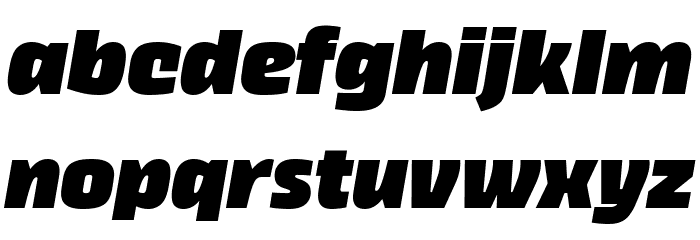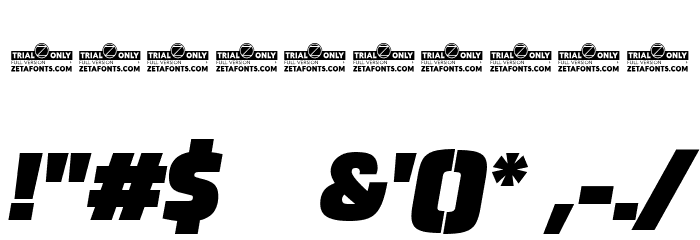
Thicker Trial Black Slanted Font
This font exhibits a bold and impactful design with a strong slant, giving it a dynamic and energetic appearance. The characters are thick and robust, making them highly visible and attention-grabbing. The uppercase and lowercase letters maintain a consistent style, with smooth curves and sharp angles that enhance readability. The numbers and special characters are designed to match the boldness of the alphabet, ensuring uniformity across all text elements. This font's slanted style adds a sense of motion and modernity, making it suitable for various creative applications.
A bold, slanted font with a dynamic and modern style.
- Font: Thicker Trial Black Slanted
- Proposed Projects: Ideal for sports branding, dynamic posters, modern advertising, and eye-catching headlines.